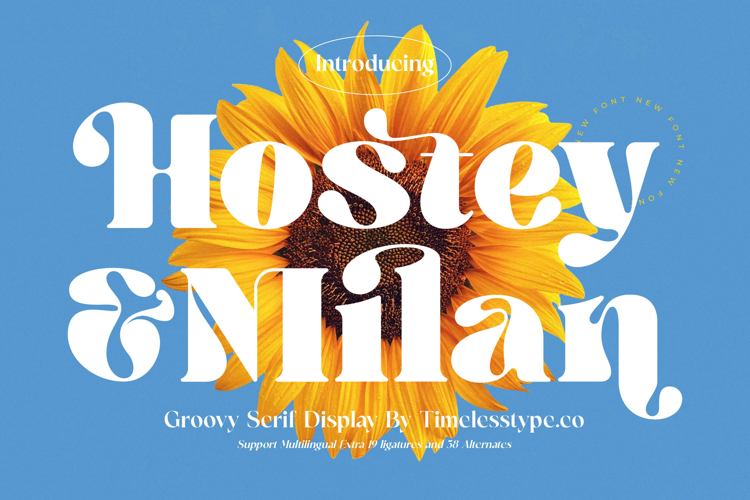
Hostey & Milan - Groovy Serif Display
Elevate your designs with an irresistible blend of retro charm and modern sophistication. Introducing Font Hostey & Milan - Groovy Serif Display Groovy, a captivating typeface that redefines contemporary display typography. Its distinctive high-contrast letterforms, playful serifs, and elegant curves evoke a nostalgic "groovy" aesthetic while maintaining a fresh, versatile appeal. This font is engineered to make an unforgettable visual statement, perfect for designers aiming for impact and personality.
Unleash unparalleled creative potential with Font Hostey & Milan - Groovy Serif Display Groovy's rich feature set. Boasting an impressive collection of 19 ligatures and 58 alternates, this font allows for extensive customization, ensuring every headline and logotype is truly unique. These carefully crafted glyphs provide designers with the tools to create bespoke typography that stands out, enhancing brand identity with intricate details and expressive styling.
Expand your global reach effortlessly with superior linguistic capabilities. With its extensive multilingual support, Font Hostey & Milan - Groovy Serif Display Groovy adapts seamlessly across global markets, making it incredibly versatile for international projects. This crucial feature ensures your message resonates worldwide, transcending language barriers while maintaining its inherent stylistic integrity and compelling visual presence.
Make a bold statement across diverse platforms. Font Hostey & Milan - Groovy Serif Display Groovy is perfect for luxury branding, fashion editorials, vibrant packaging, impactful advertising campaigns, and dynamic social media graphics. Ideal for headlines, posters, and any application requiring a strong, memorable, and stylish impression, this font infuses projects with an undeniable sense of character and artistic flair.